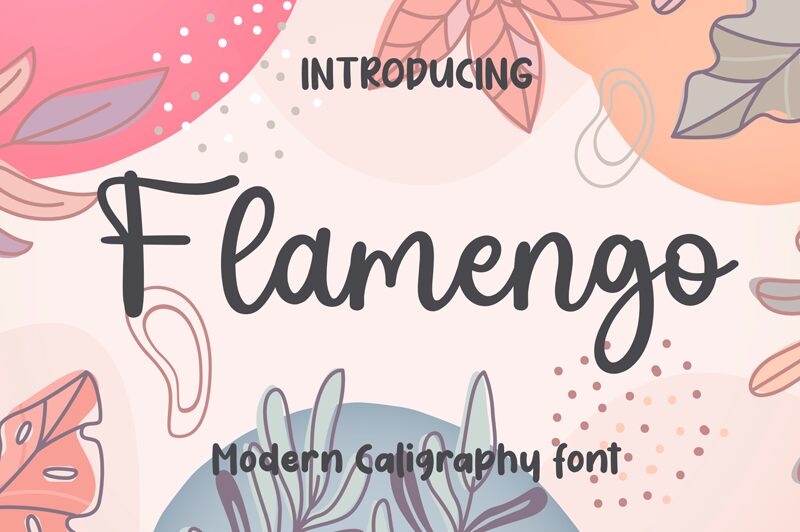
Flamengo
Flamengo, the exquisite creation by Erlina Graphic, boasts a modern handwritten font style with a touch of elegance. Its semi-light weight adds a delicate charm to any project it graces. Suitable for an array of creative projects, Flamengo effortlessly uplifts wedding invitations with its romantic flair, breathes life into fashion blogs with its trendy appeal, and adds a personal touch to logo designs seeking a contemporary edge. Whether you're crafting engaging social media graphics or designing stunning packaging, Flamengo's unique blend of modernity and handwritten beauty will leave an unforgettable impression.